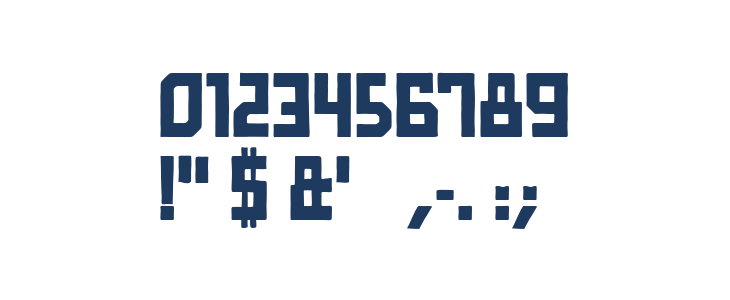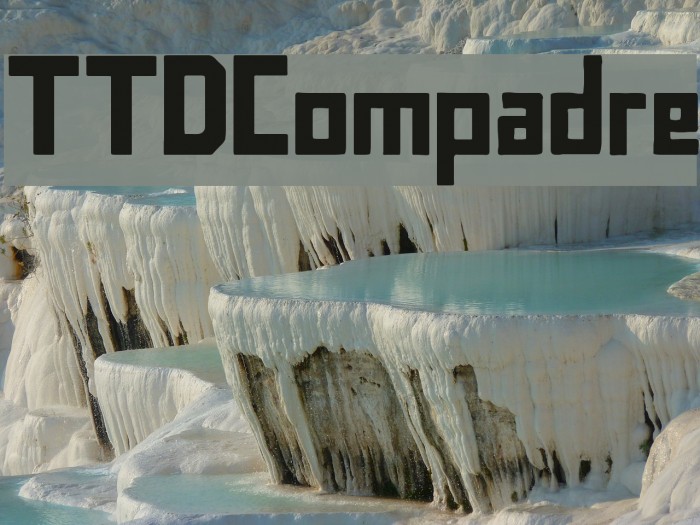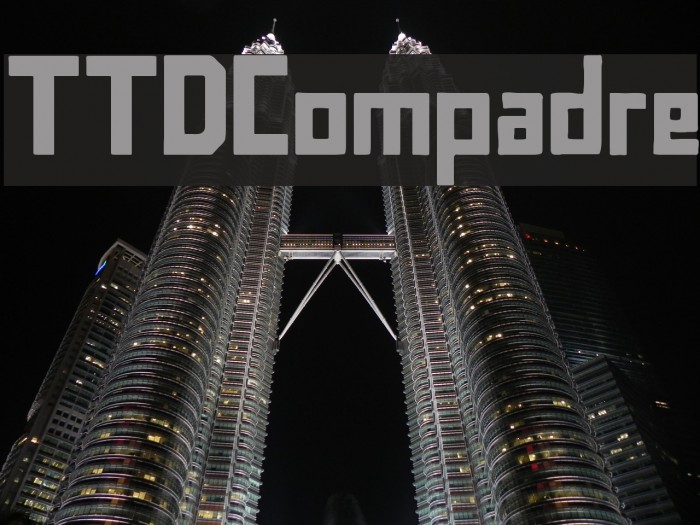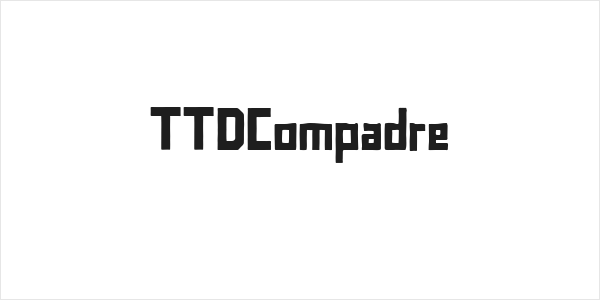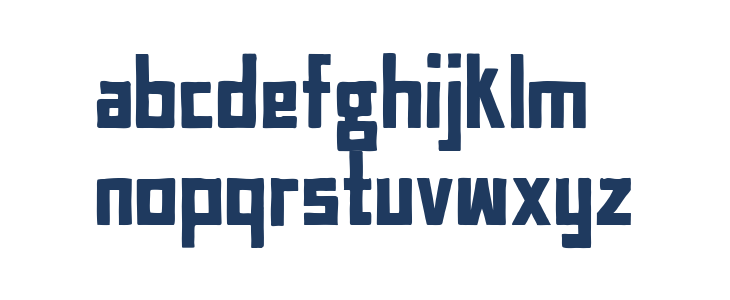
TTDCompadre Font
TTDCompadre Description
This font features a bold and geometric design, characterized by its blocky and angular letterforms. The uppercase letters are uniform in height, creating a strong and cohesive appearance. The lowercase letters maintain the same geometric style, with some characters like 'g' and 'j' having distinctive descenders. The numerals are equally bold and consistent with the overall style, ensuring readability and impact. Special characters are designed to match the boldness and geometric nature of the alphabet, making them suitable for various design applications.
Proposed ProjectsIdeal for posters, logos, and branding materials that require a strong visual impact.